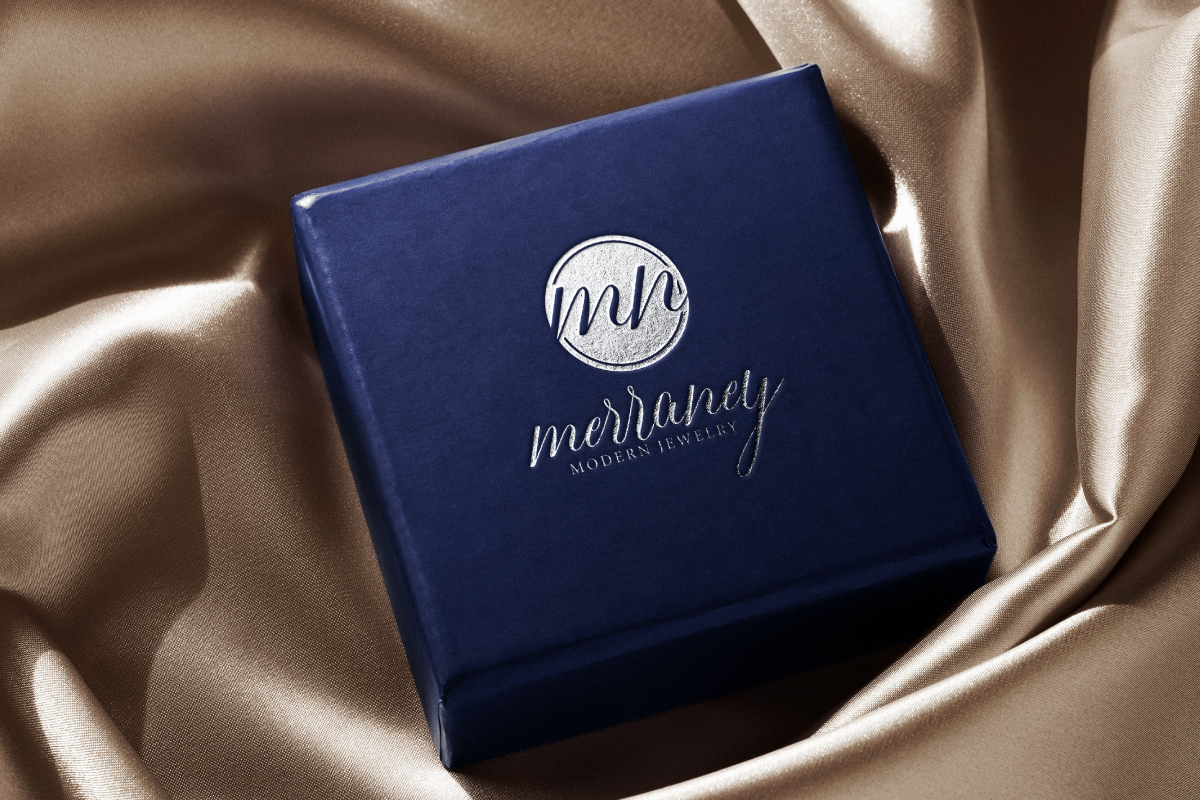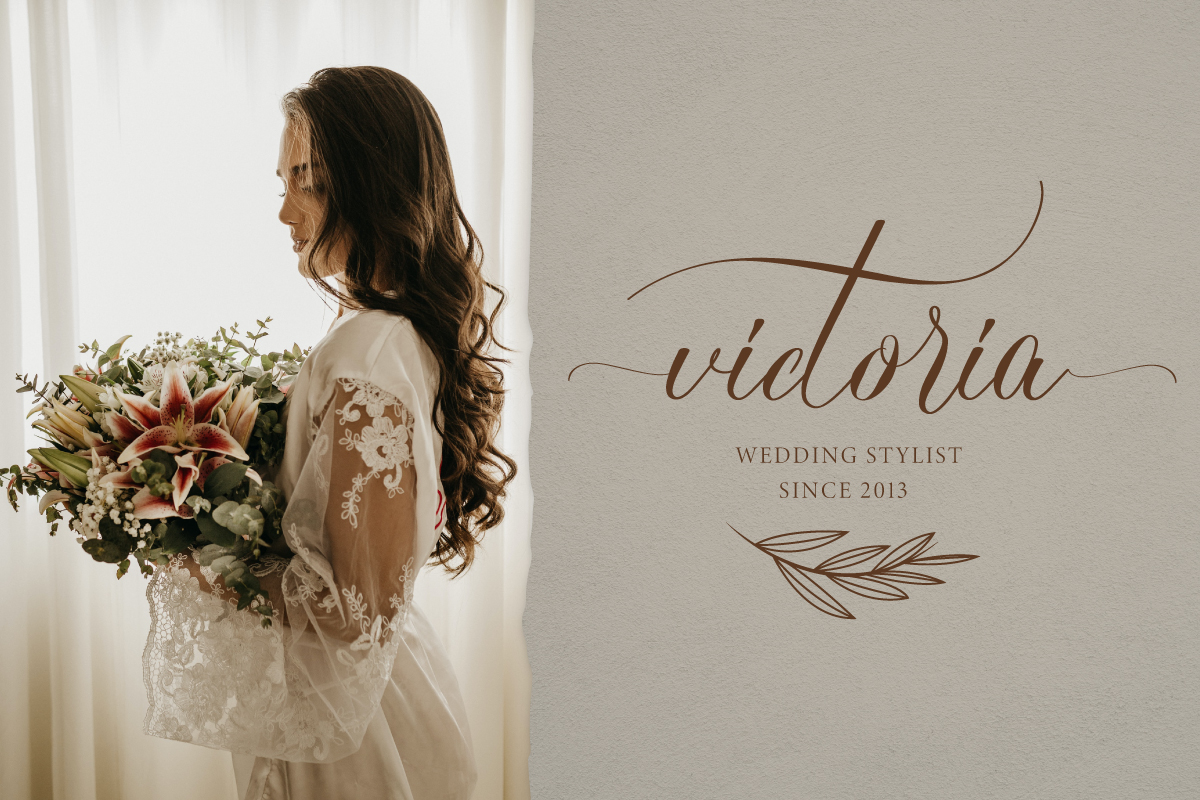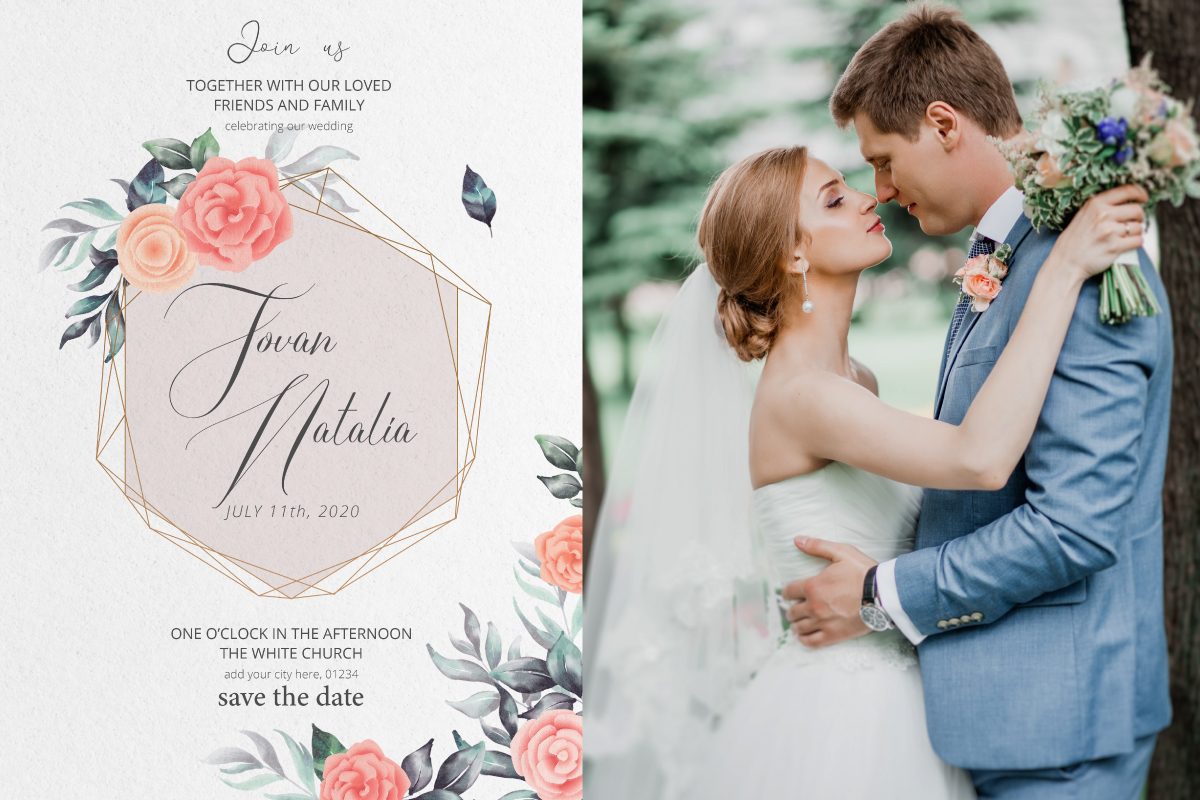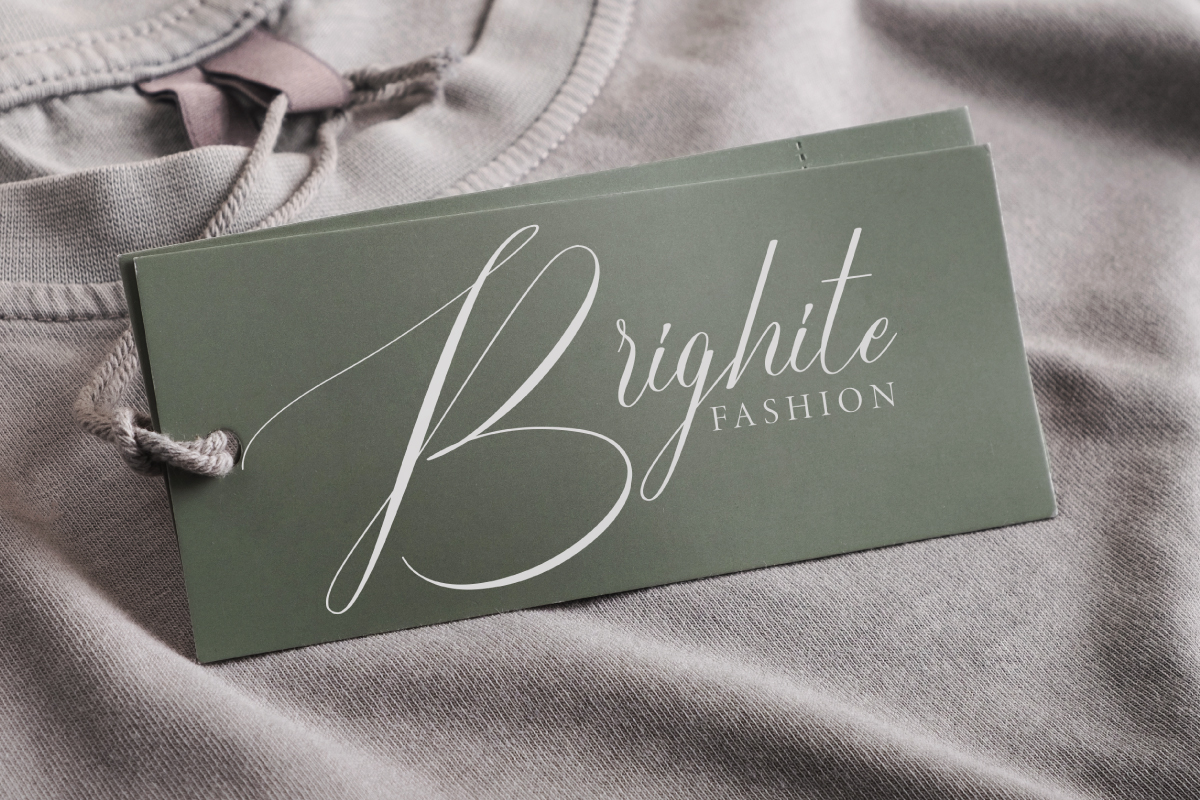
Sweet Memory Calligraphy Font
This font will be great for any projects including : logo branding, lettering, products packaging, signage, social media post, stationery, etc. This font comes with a full set of characters, uppercase and lowercase letters, numbers and punctuations. Also complementary characters such as alternates, swoosh are made to blend with classy and exclusive shapes that make them stand out.